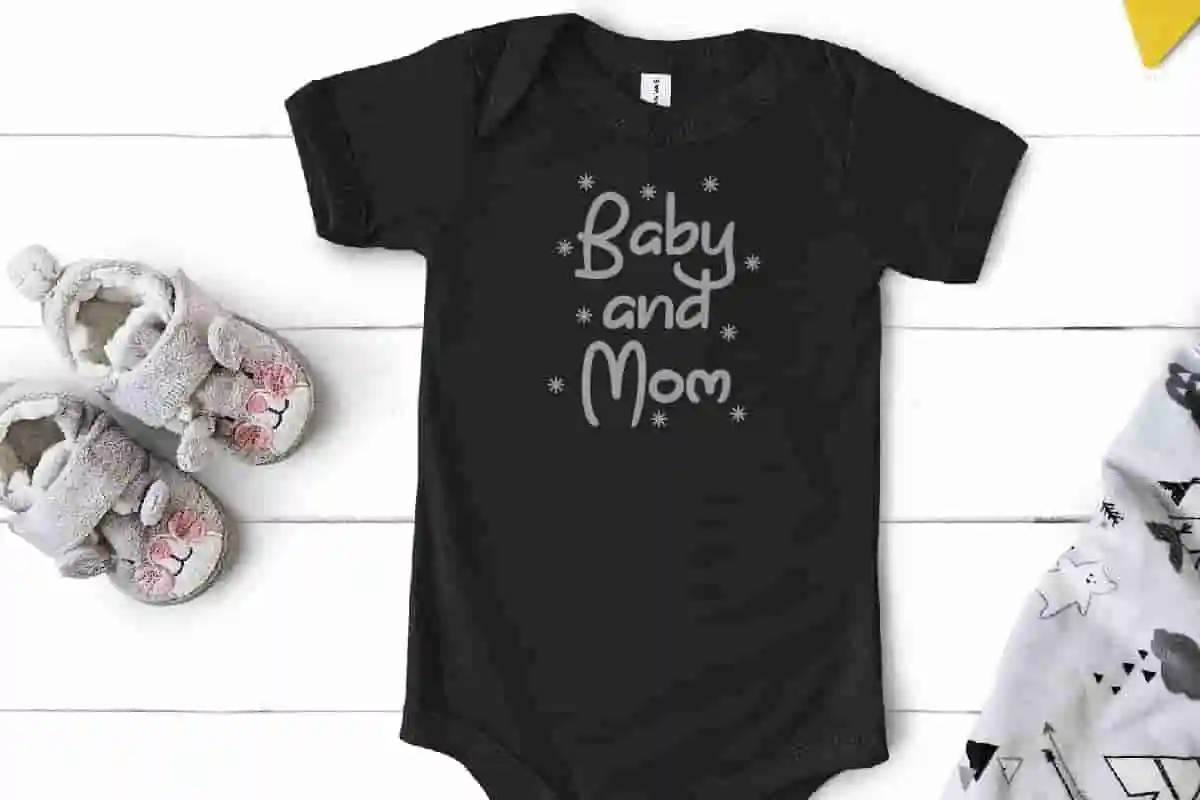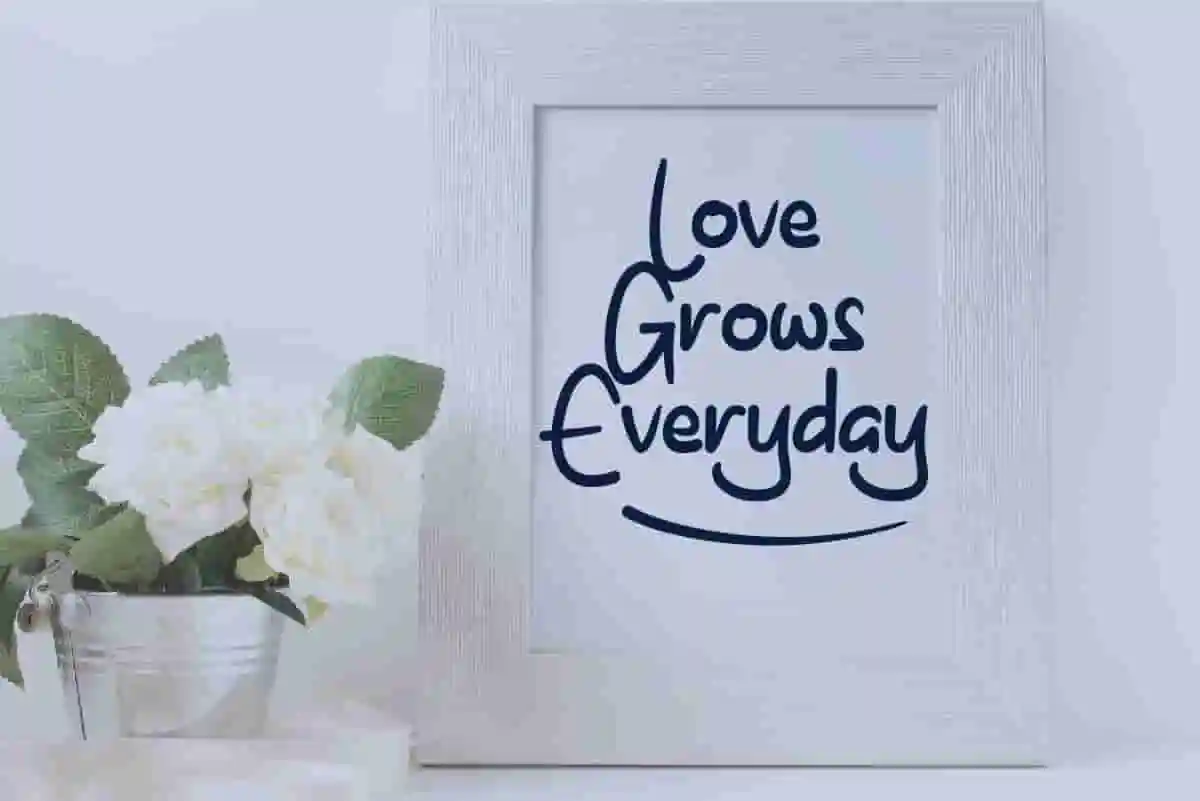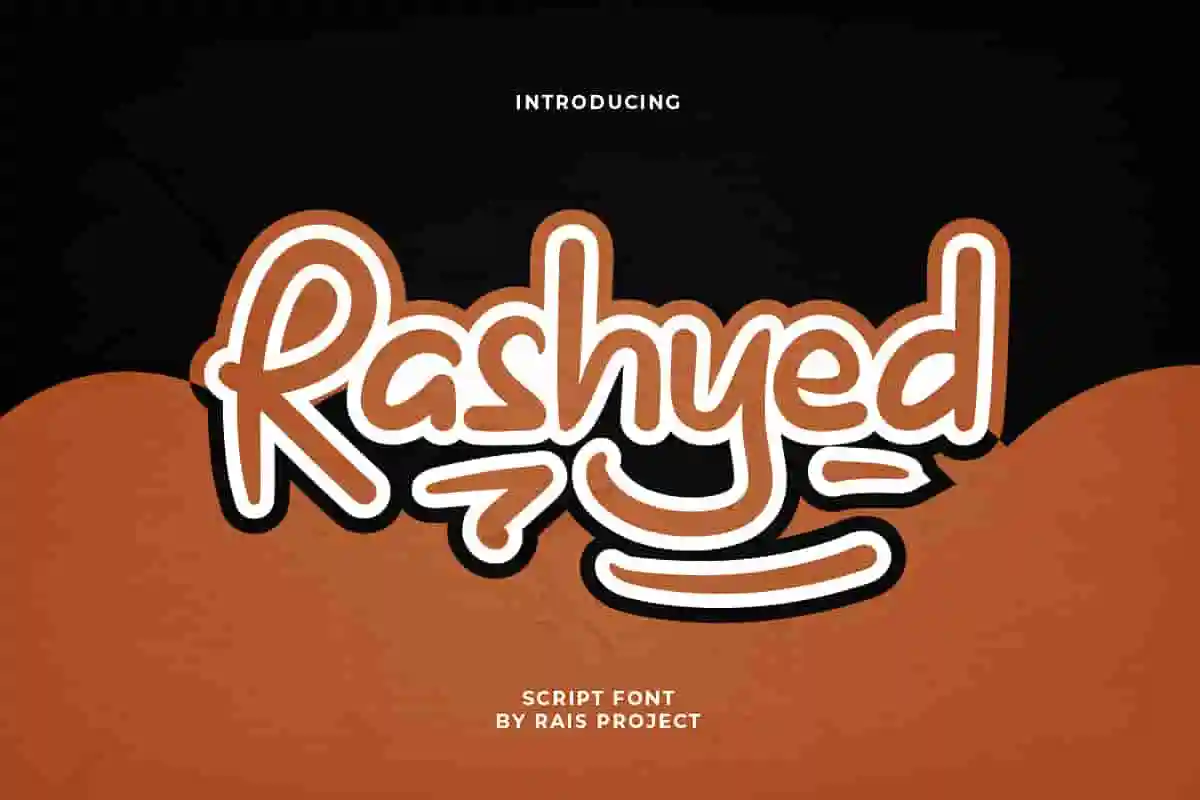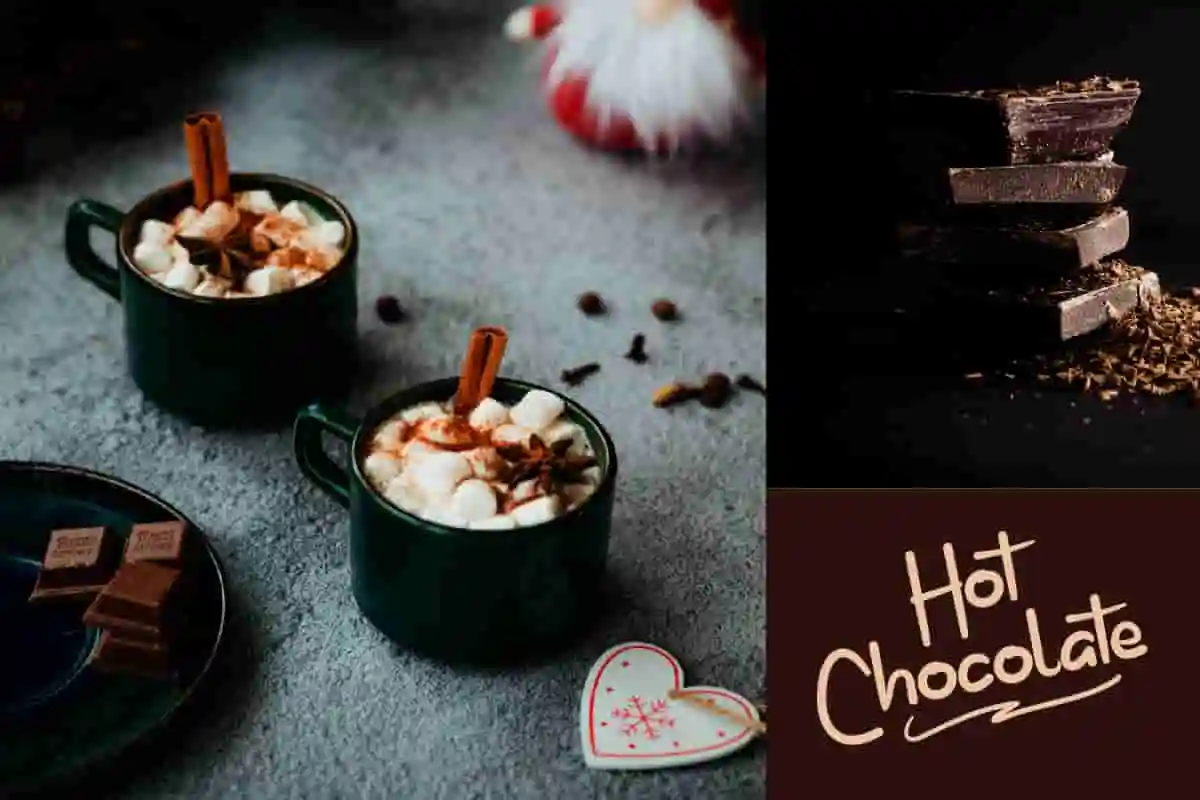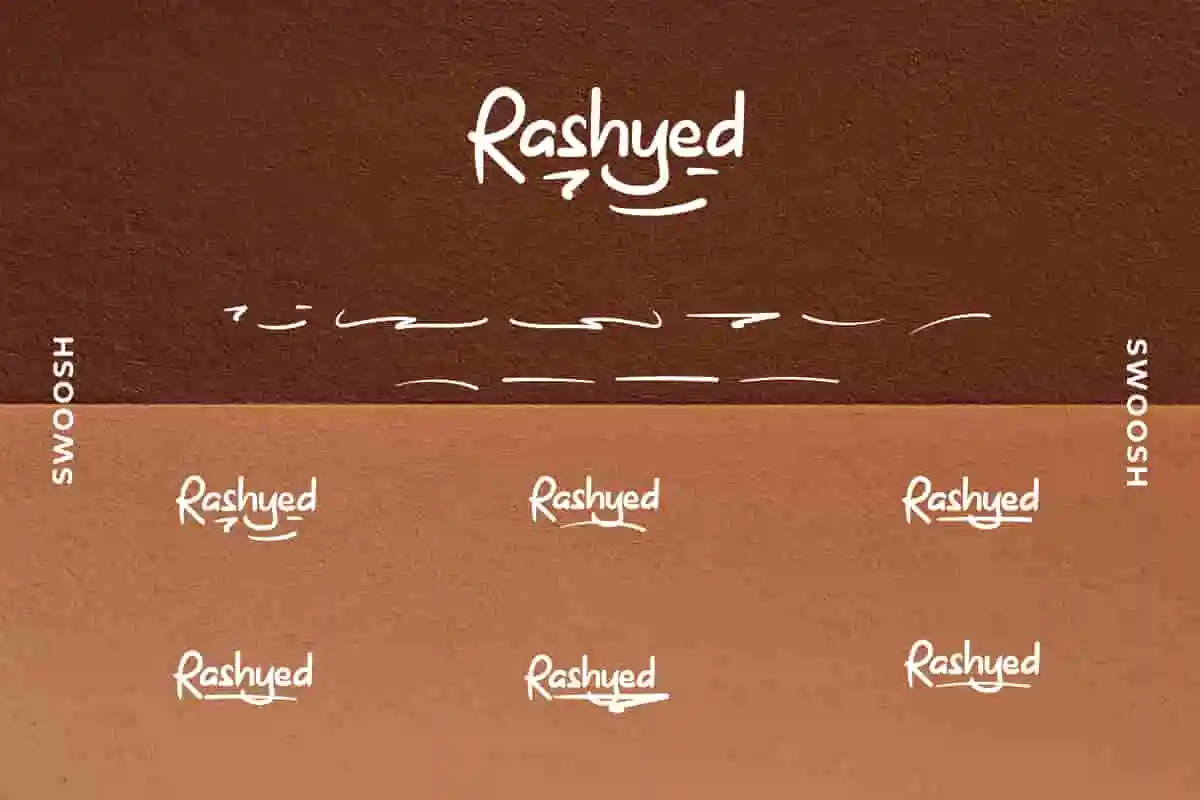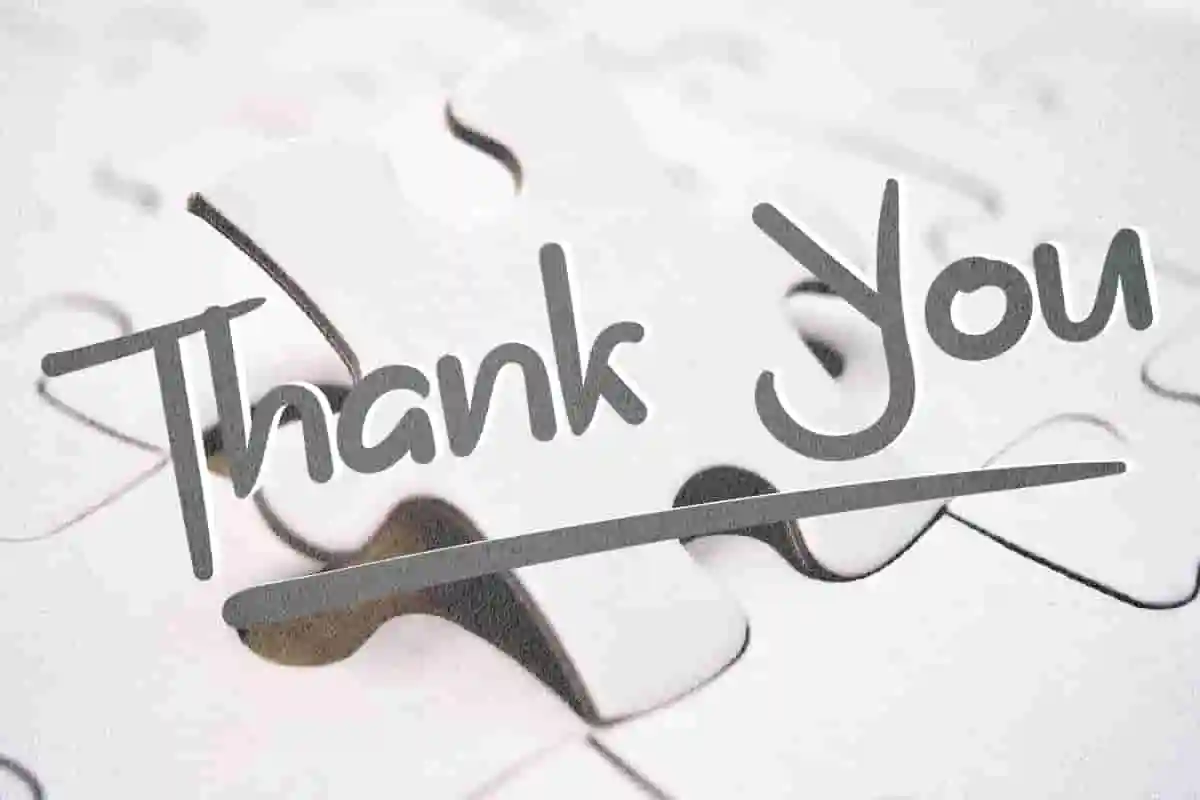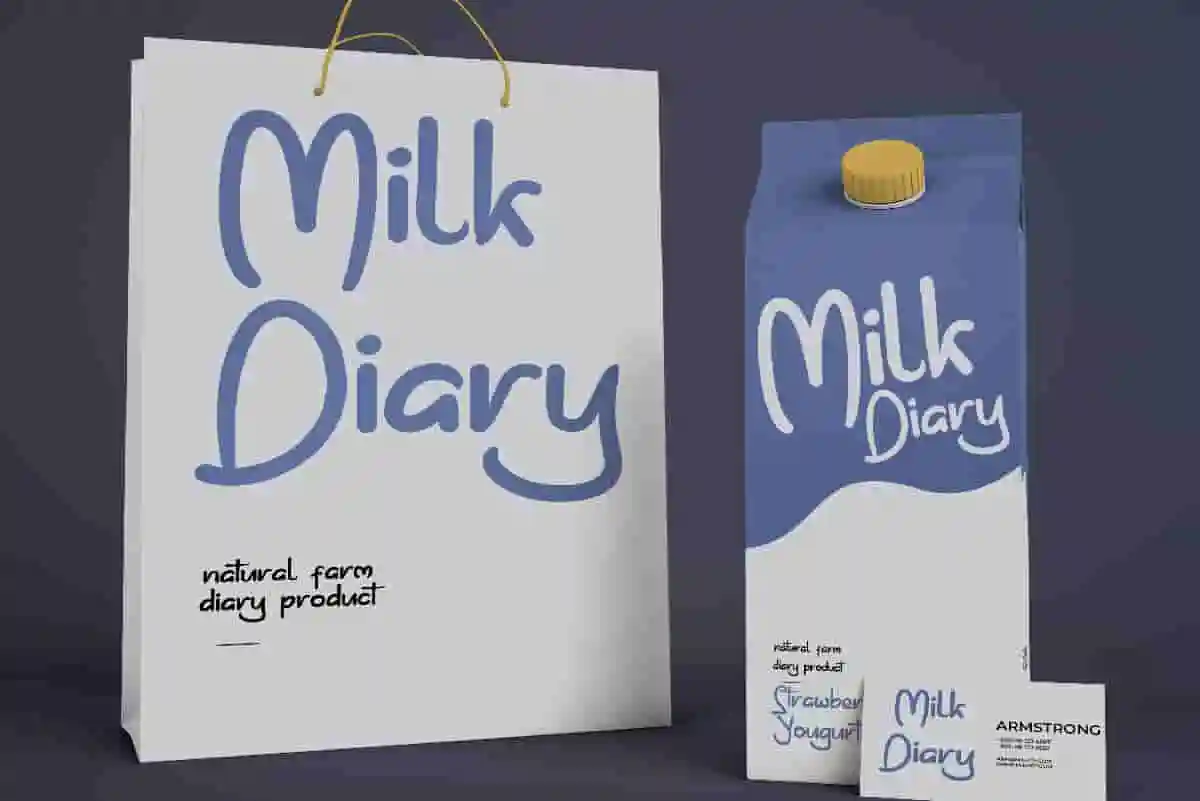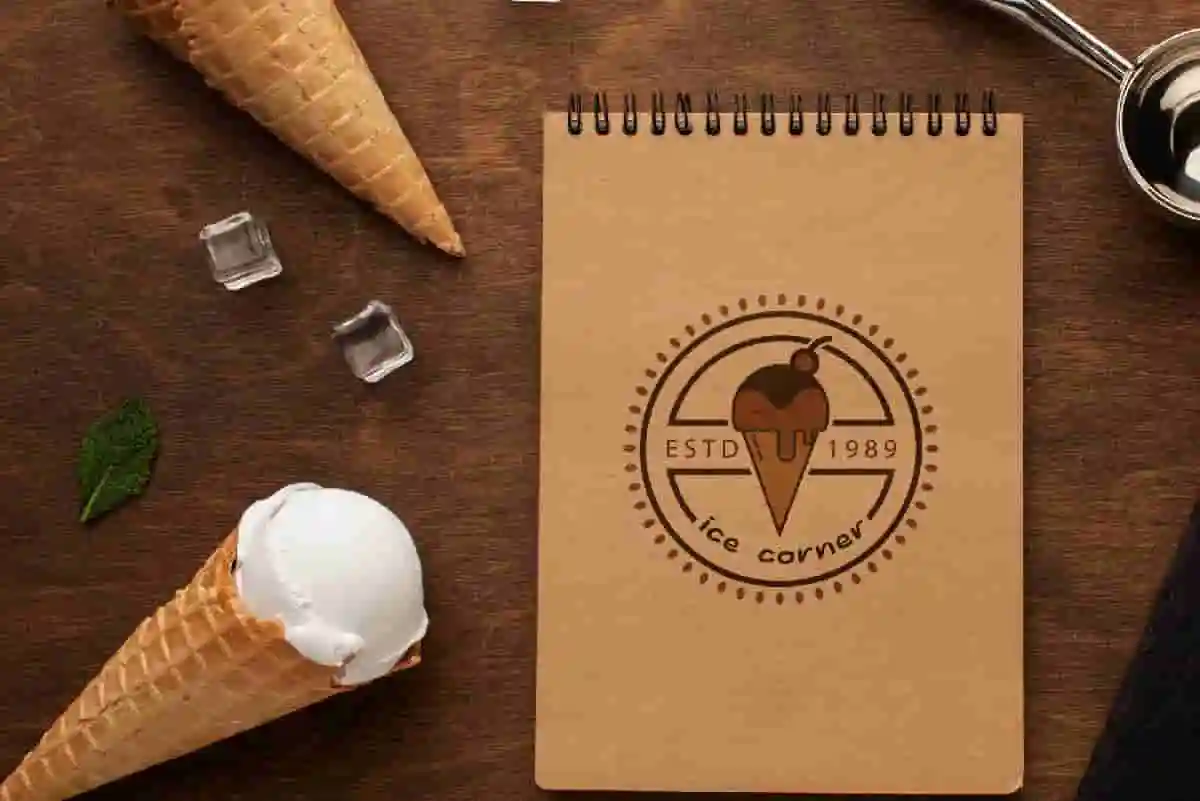
Rashyed Handwriting Fun Font
Rashyed is a fun comic inspired handwriting font by RaisProject. It will be great for Children book, comic, invitation, games, promotion, events, advertising etc
Rashyed is a fun comic inspired handwriting script font with casual handwriting style. You can see the demo font below. You can also input any word you want so you can see what it will look like :
Rashyed Font handcrafted With simple characters, it will be stunning for any your special projects including : games, promotion, events, branding, advertising, magazine, apps, signage, invitation, stationery, social media posts, product packaging, product designs, label, comic, watermark or and any projects that need calligraphy handwriting style. Rashyed Handwriting Font includes full set of cool uppercase and lowercase letters, numerals, a large range of punctuation and ligatures. All letters has hand-lettered style to make it unique yet cool looking design. You will get: